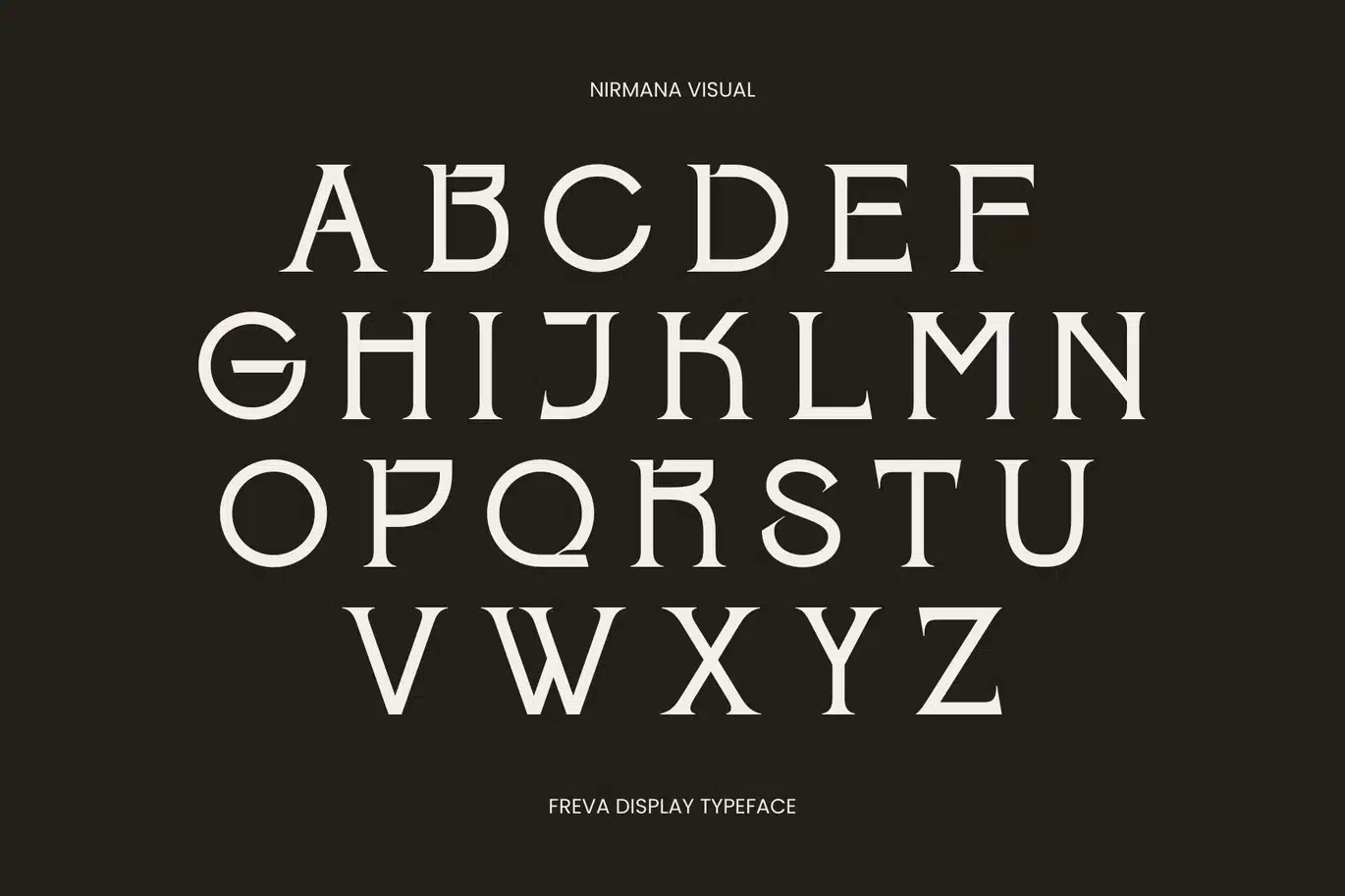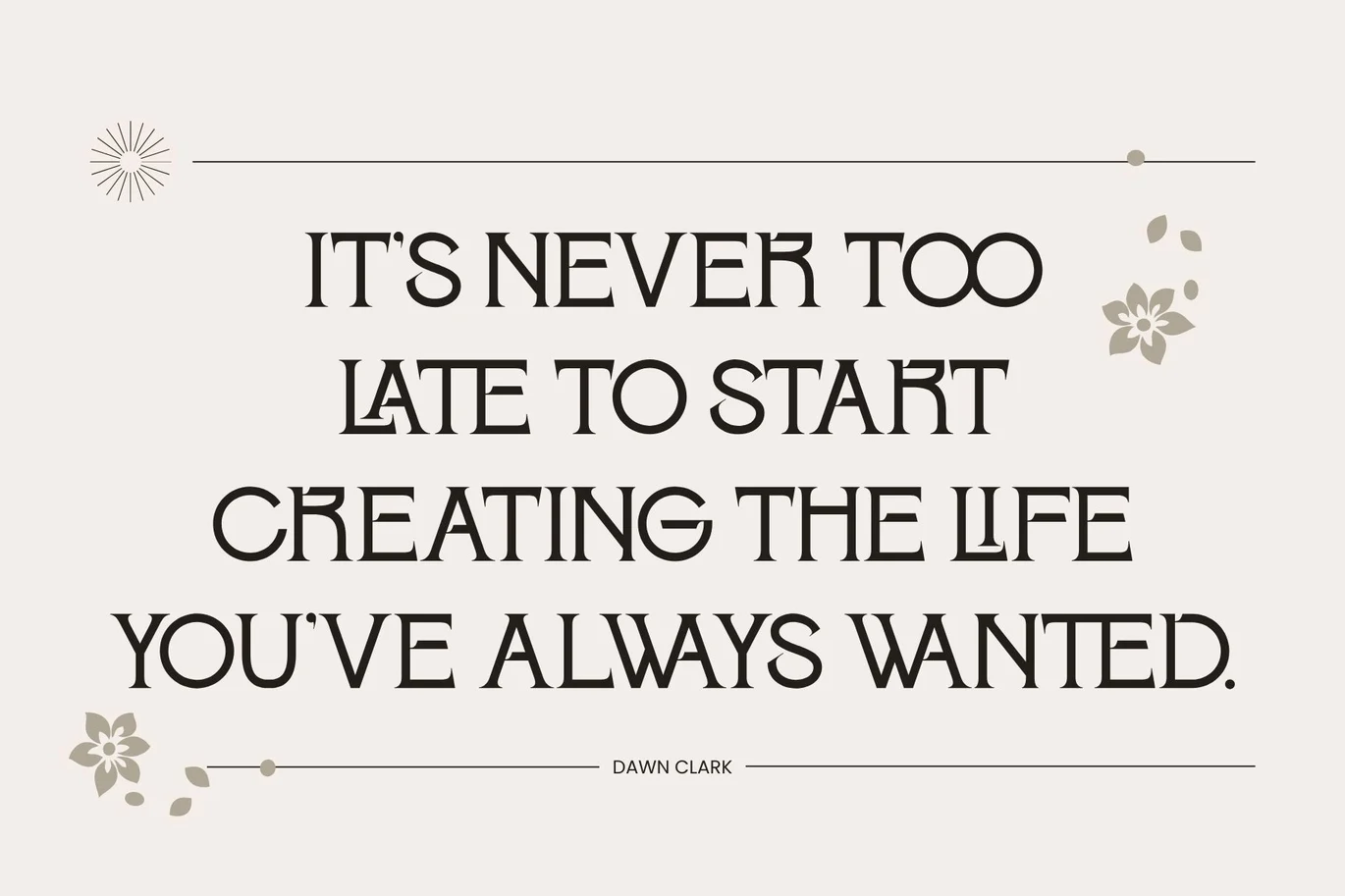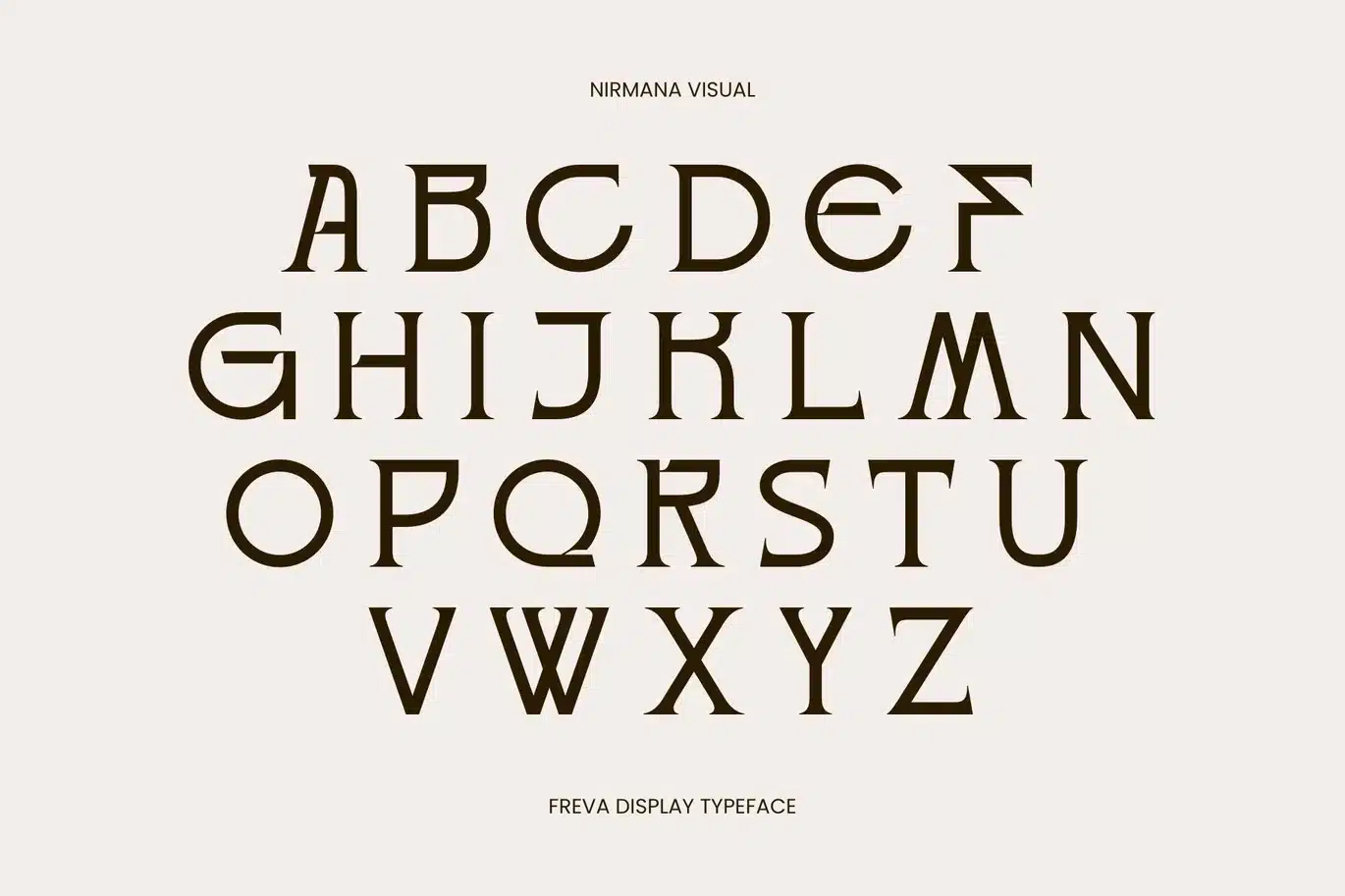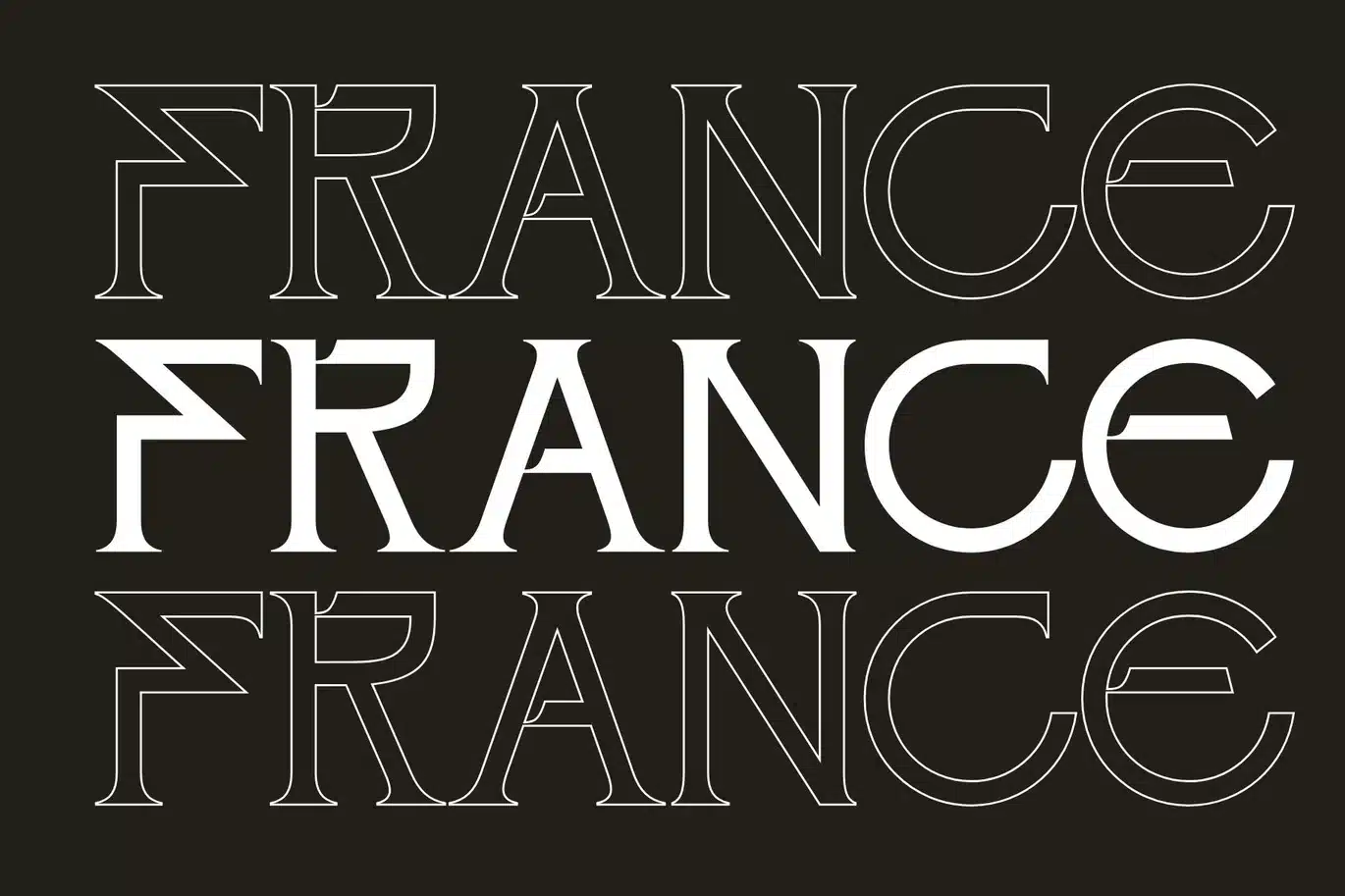
Freva – Modern Branding Logo Font
Freva offers beautiful typographic harmony for a diversity of design projects, including logos & branding, social media posts, advertisements & product designs.